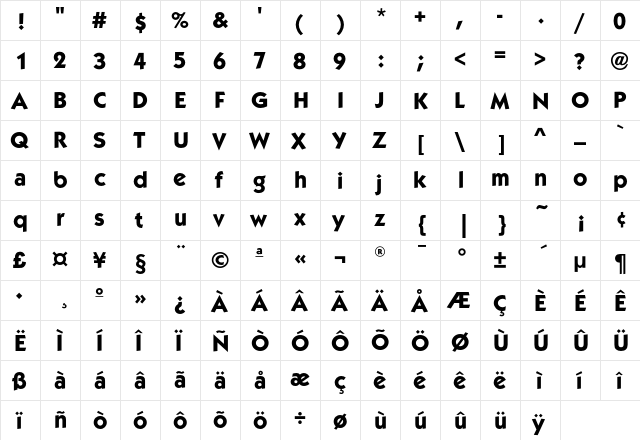
KabelEF-Bold Regular
Design Context for KabelEF-Bold Typeface
KabelEF-Bold is a composed and adaptable typeface that performs quietly and consistently across a wide range of design contexts. Its bold stroke weight gives it real presence on the page.